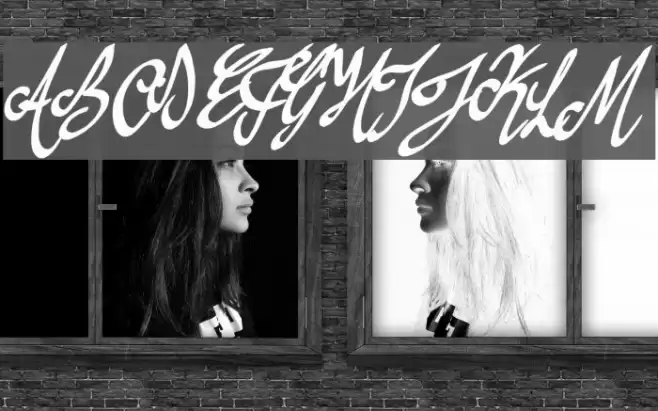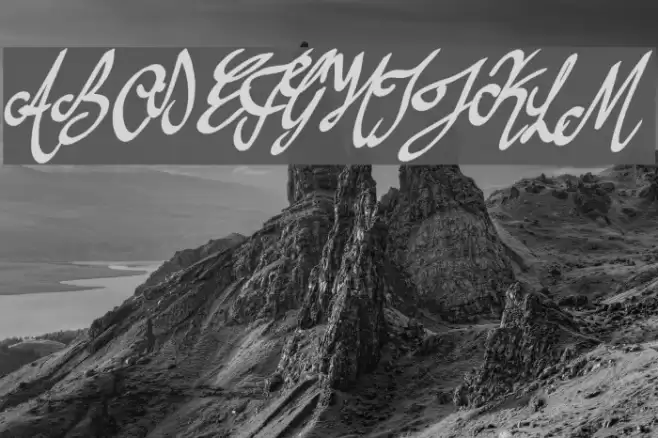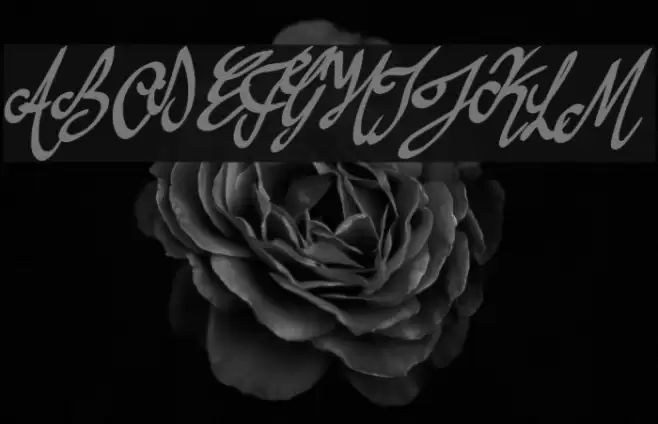
Anything For You Font
Anything For You Description
This font exhibits a dynamic and fluid script style, characterized by its elegant and flowing letterforms. The uppercase letters are bold and expressive, with exaggerated curves and loops that convey a sense of movement and grace. The lowercase letters maintain a consistent style, with smooth transitions and a slightly more restrained appearance. The overall design is reminiscent of traditional calligraphy, yet it retains a modern edge, making it suitable for a variety of creative applications. The font's unique personality is further enhanced by its high contrast in stroke thickness, adding depth and visual interest.
A dynamic and fluid script font with elegant, flowing letterforms and high contrast from Uncategorized fonts.
- Proposed Projects: Ideal for wedding invitations, branding, logos, and artistic projects requiring a touch of elegance and sophistication.
- Use Case: Logos, Invitations, Artistic projects